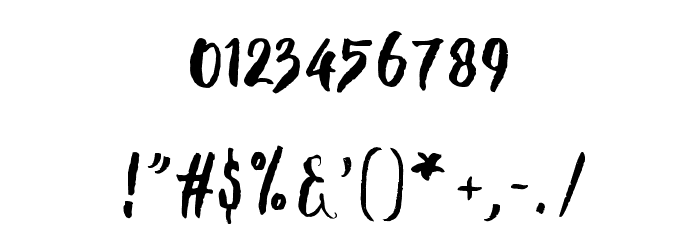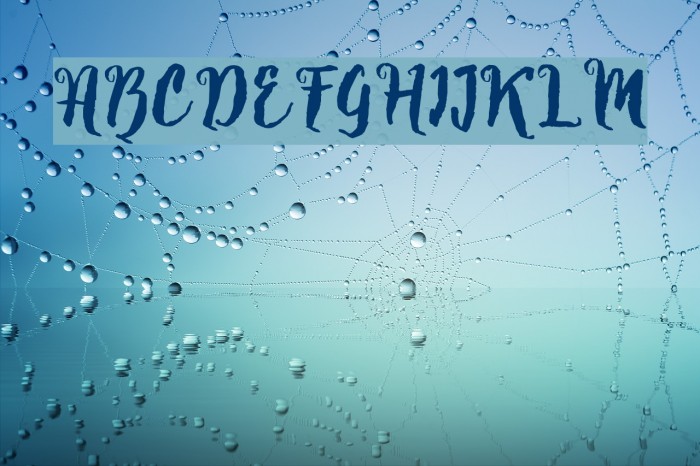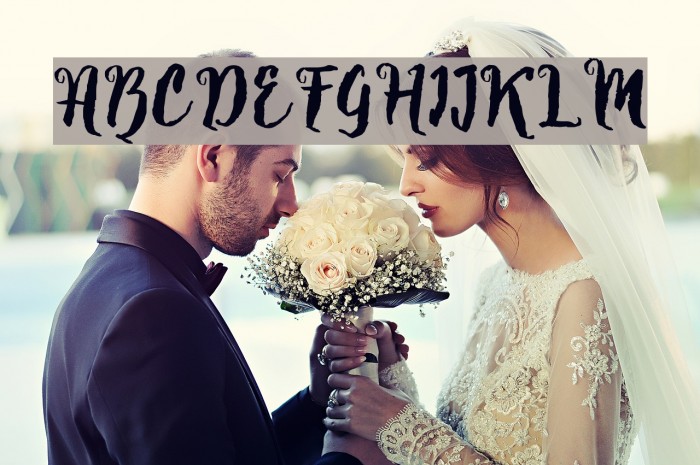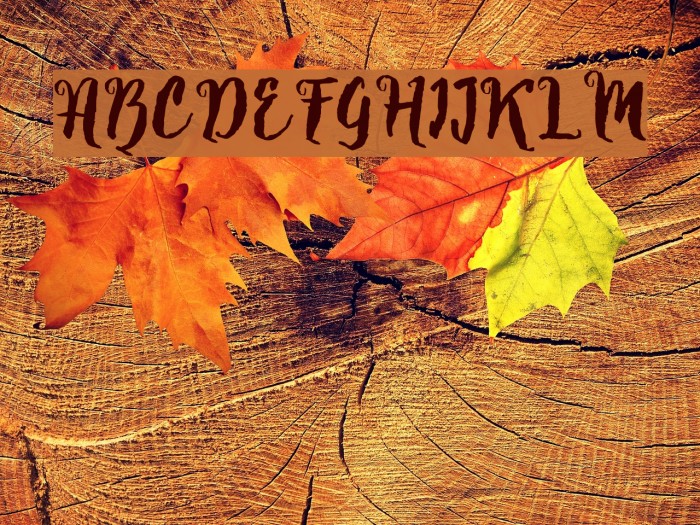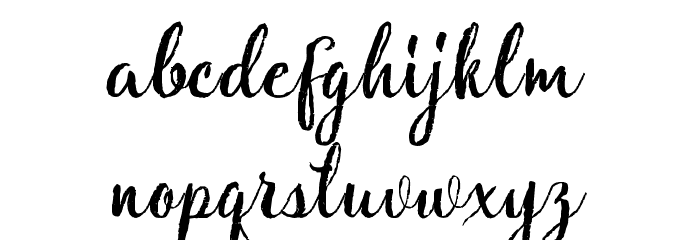
Natural Font
Natural Description
This font exudes a natural, hand-drawn aesthetic with a flowing, cursive style. The letters are characterized by their fluid strokes and varying thickness, giving a sense of movement and elegance. The uppercase letters are bold and prominent, while the lowercase letters maintain a graceful continuity. Numbers and special characters are crafted with the same artistic flair, making them cohesive with the overall design. The font's organic appearance makes it ideal for projects that require a personal touch or a creative, artistic vibe.
| Proposed Projects | Ideal for wedding invitations, greeting cards, artistic branding, and creative posters. |